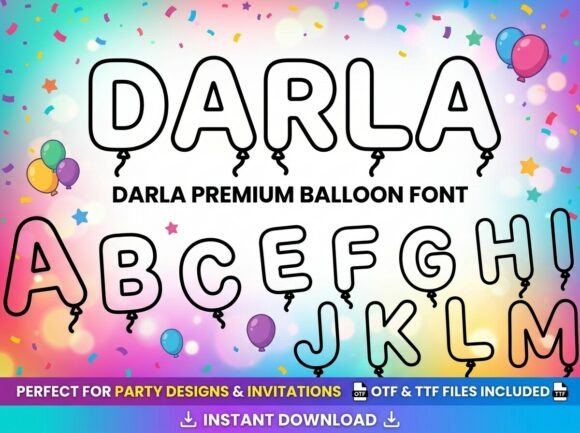
Discover the Joyful Darla Font: Elevate Your Designs with a Celebratory Twist
I’ll never forget the time I was working on a children’s party invitation project, and I just couldn’t find the right font to capture the playful, festive vibe I was going for. The client wanted something that would make kids (and adults!) feel like they’re walking into a balloon-filled wonderland. That’s when I stumbled upon Darla, a display typeface that instantly brought a smile to my face. With its thick, rounded letterforms and rhythmic tied-off tails, Darla embodies the perfect blend of whimsy and celebration.
What Makes Darla So Special?
Darla is more than just a font – it’s an experience. Designed to mimic inflated party balloons, this typeface features a soft, air-filled aesthetic that’s sure to elevate any design. Whether you’re working on independent birthday branding, children’s party invitations, carnival signage, or high-impact social media headers, Darla’s playful graphic weight and festive personality make it the premier choice.
My Honest Review of Darla
- ✅ Unique and playful design: Darla’s rounded letterforms and tied-off tails make it a standout in any design.
- ✅ Highly versatile: From children’s party invites to social media headers, Darla can be used in a variety of projects.
- ✅ Easy to read: Despite its playful nature, Darla remains clear and legible, even at smaller sizes.
- ✅ OpenType features: Darla supports a range of OpenType features, including stylistic alternates and glyphs.
- ⚠️ Limited use cases for formal designs: Darla’s playful nature makes it less suitable for formal or professional projects.
- ⚠️ May not work well at very small sizes: Darla’s unique design may become distorted or lose its impact at very small sizes.
The Backstory Behind Darla
Darla was designed with one goal in mind: to capture the joy and celebration of special moments. According to the designer, Darla was inspired by the simple pleasures of childhood, like blowing up balloons and watching them float across the room. The result is a font that’s equal parts playful, festive, and fun.
| What type of projects is Darla best suited for? | Darla is perfect for children’s party invitations, carnival signage, social media headers, and other designs that require a playful, festive touch. |
| Does Darla support OpenType features? | Yes, Darla supports a range of OpenType features, including stylistic alternates and glyphs. |
| Can I use Darla in multiple design platforms? | Yes, Darla can be used in a variety of design platforms, including Canva, Adobe Photoshop/Illustrator, and Microsoft Word. |